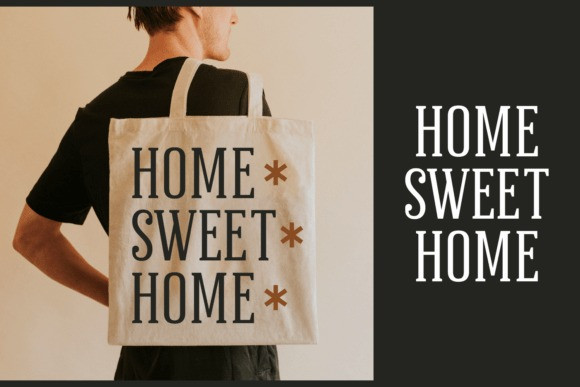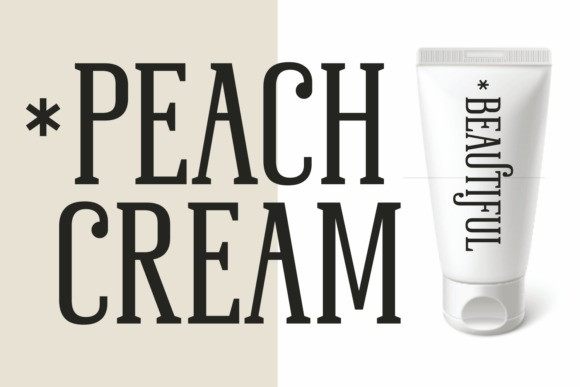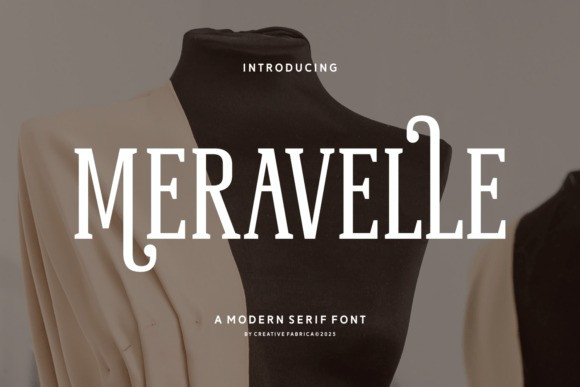
Meravelle Font
Meravelle Font, a modern serif font by Creative Fabrica from the year 2025. The high-fashion context perfectly complements the font’s elegant and unique character, which includes stylish alternate letterforms.